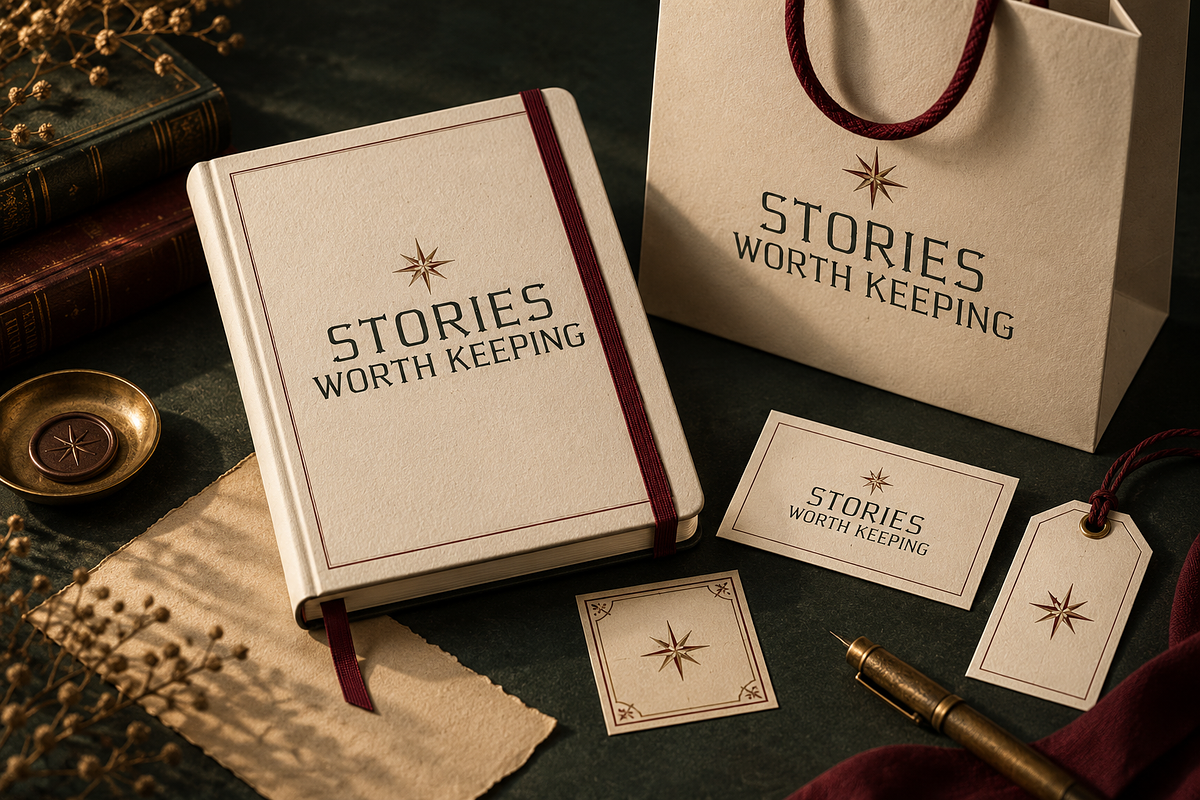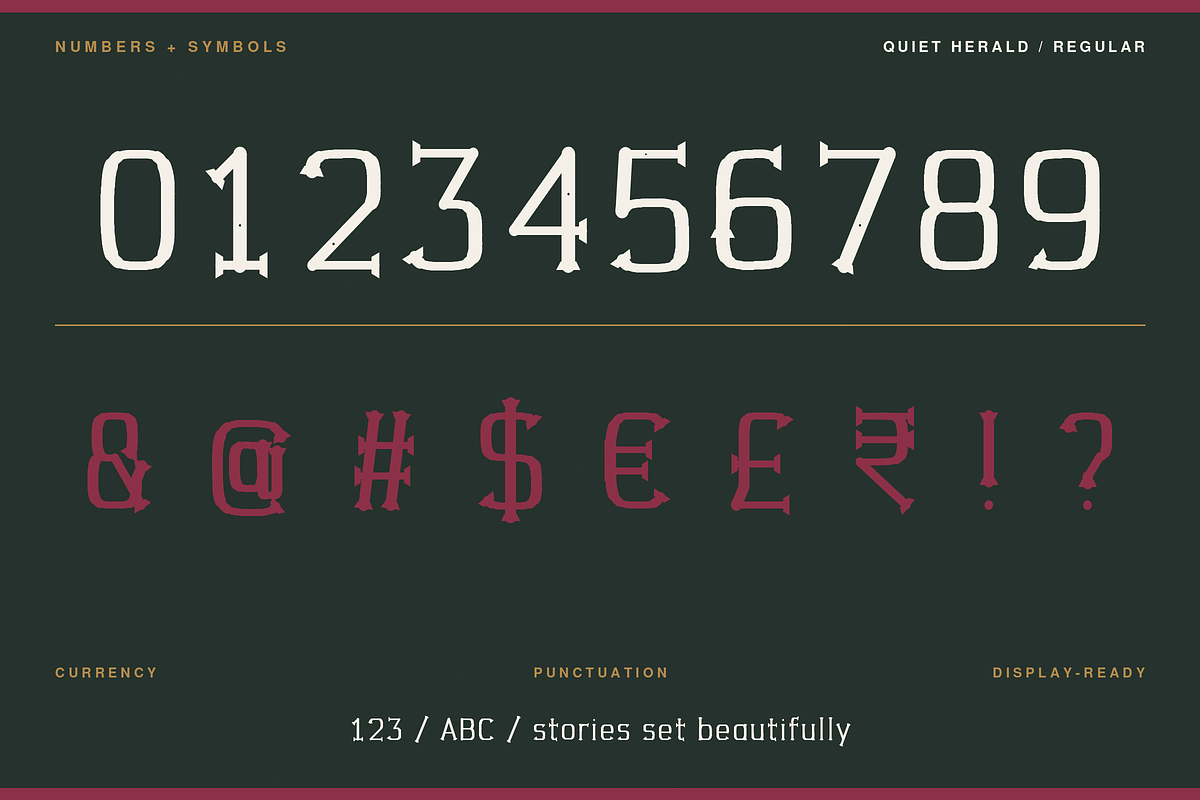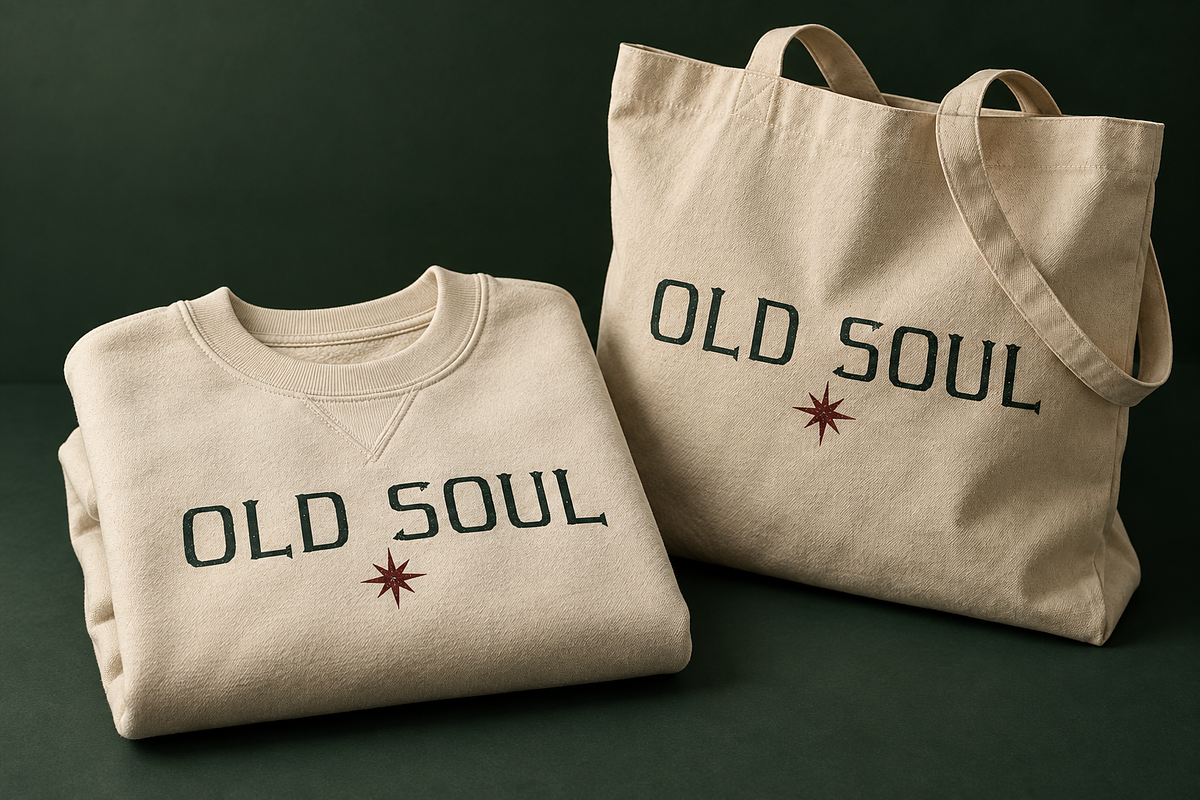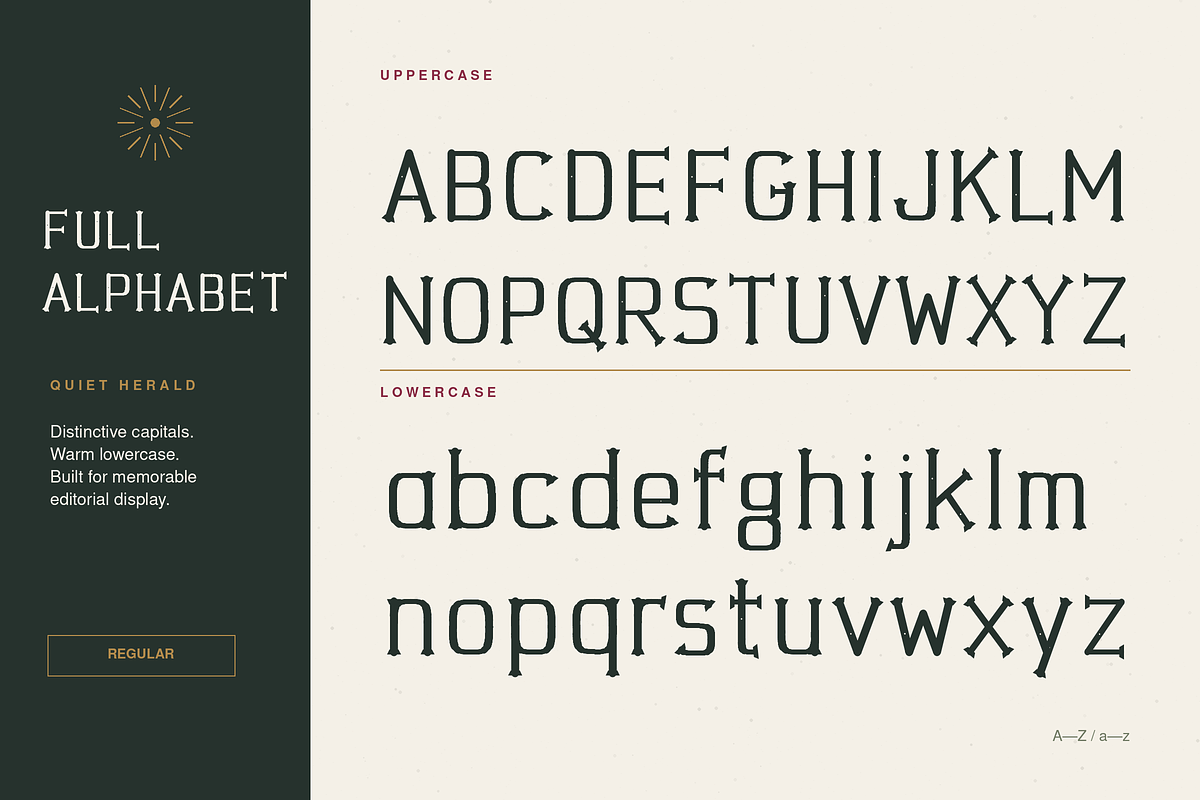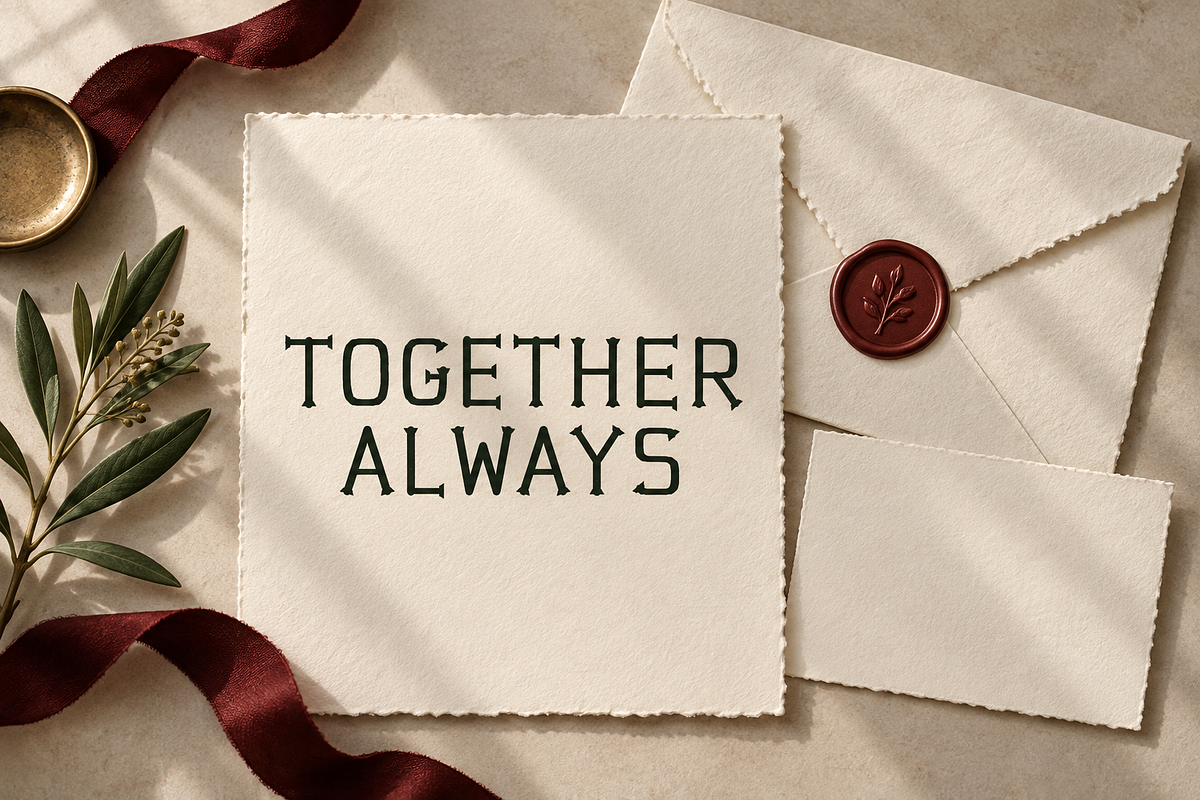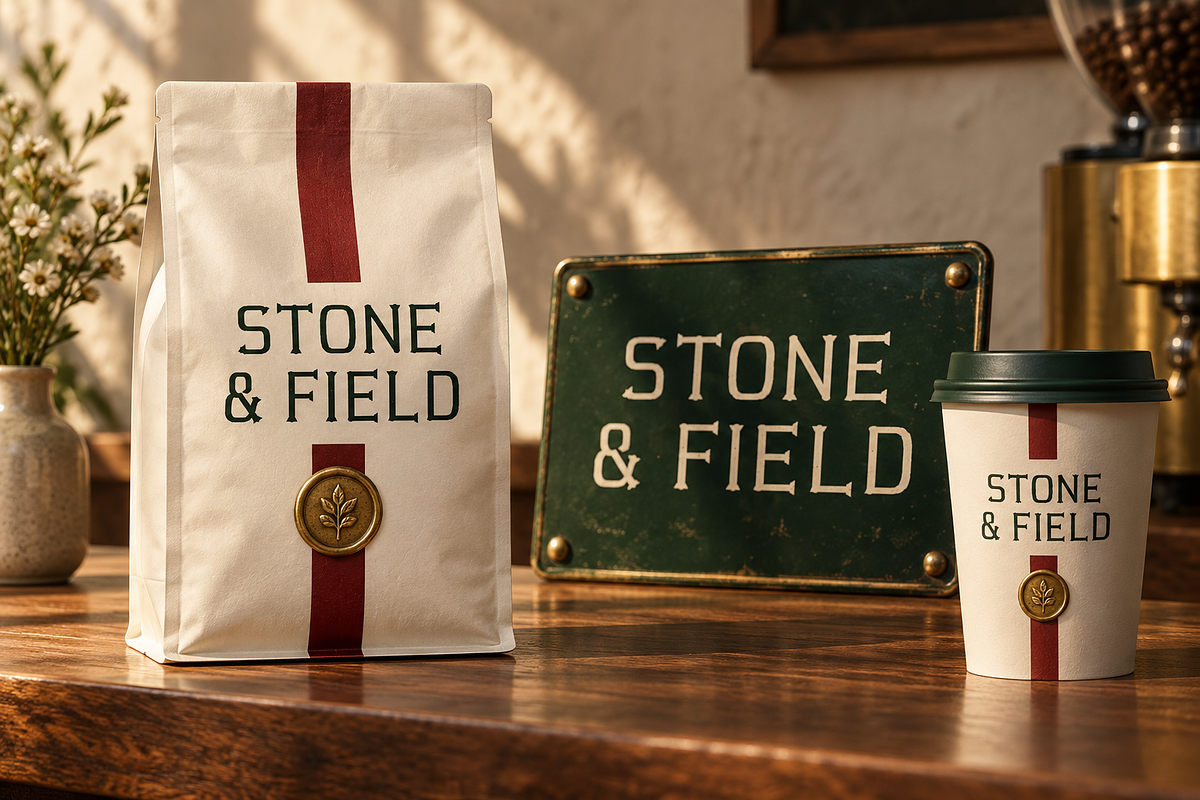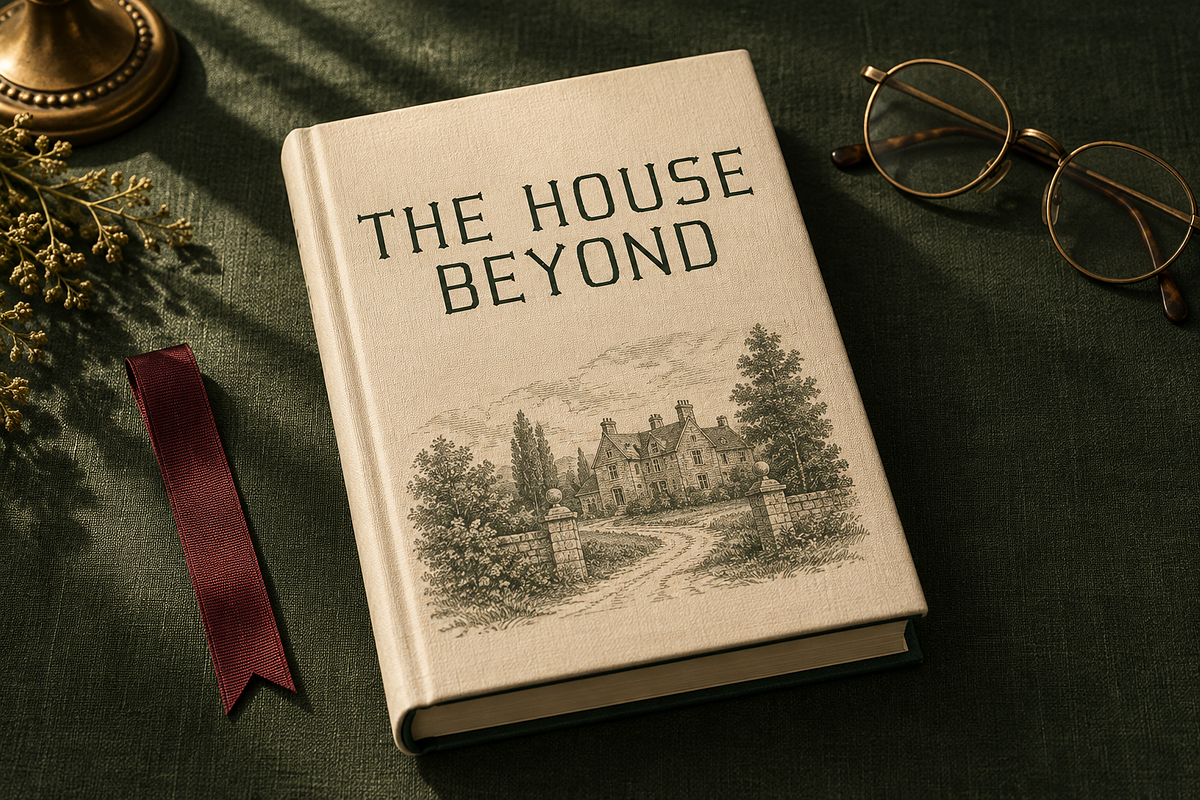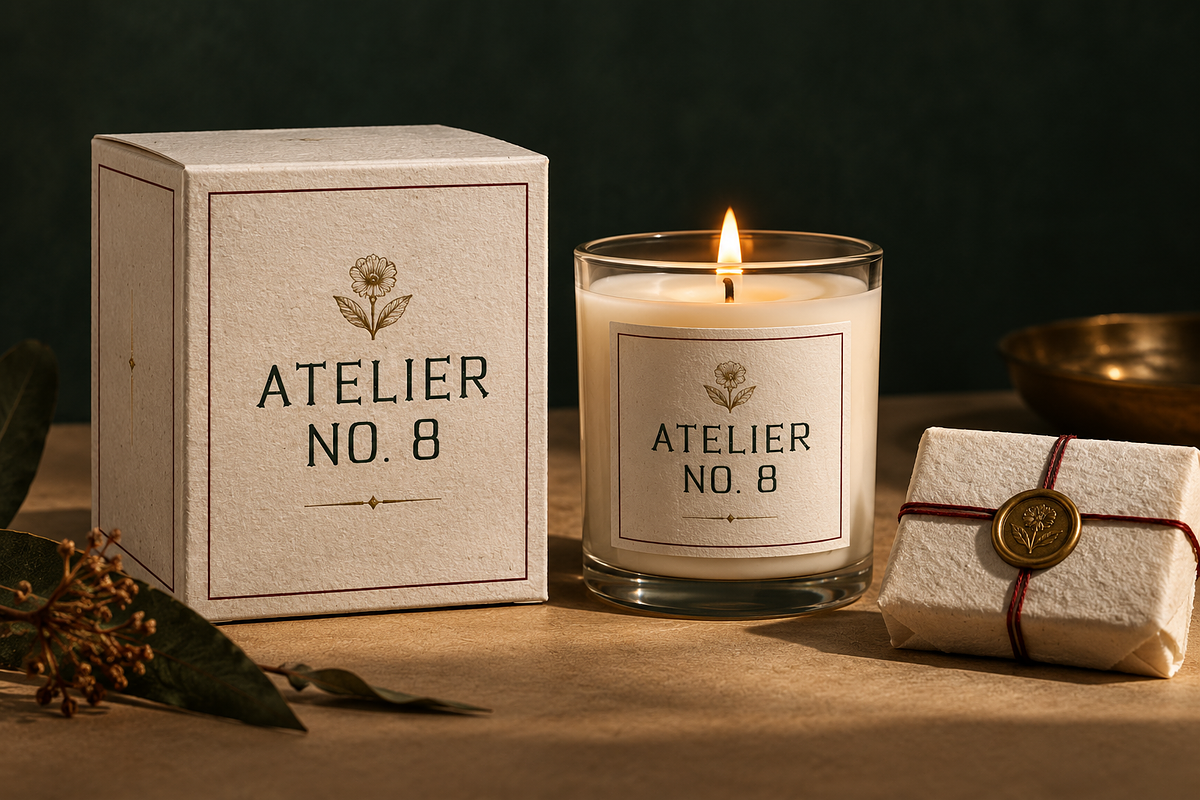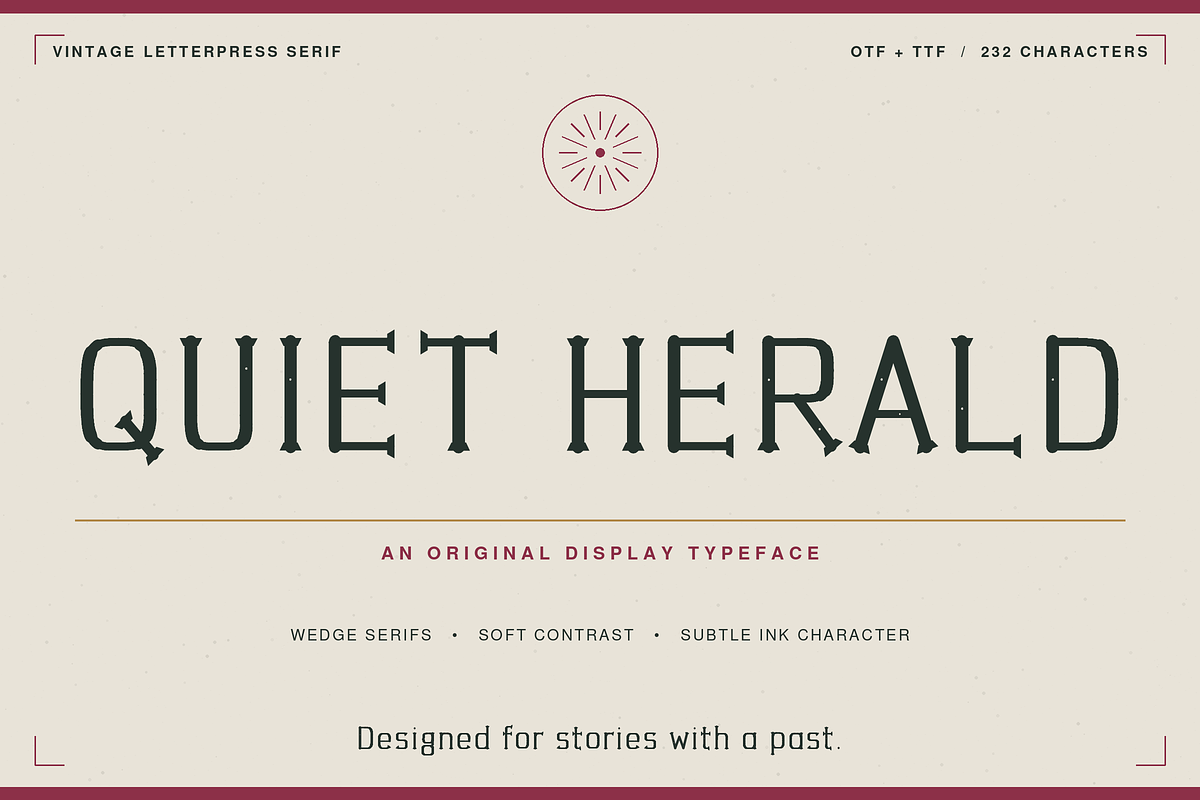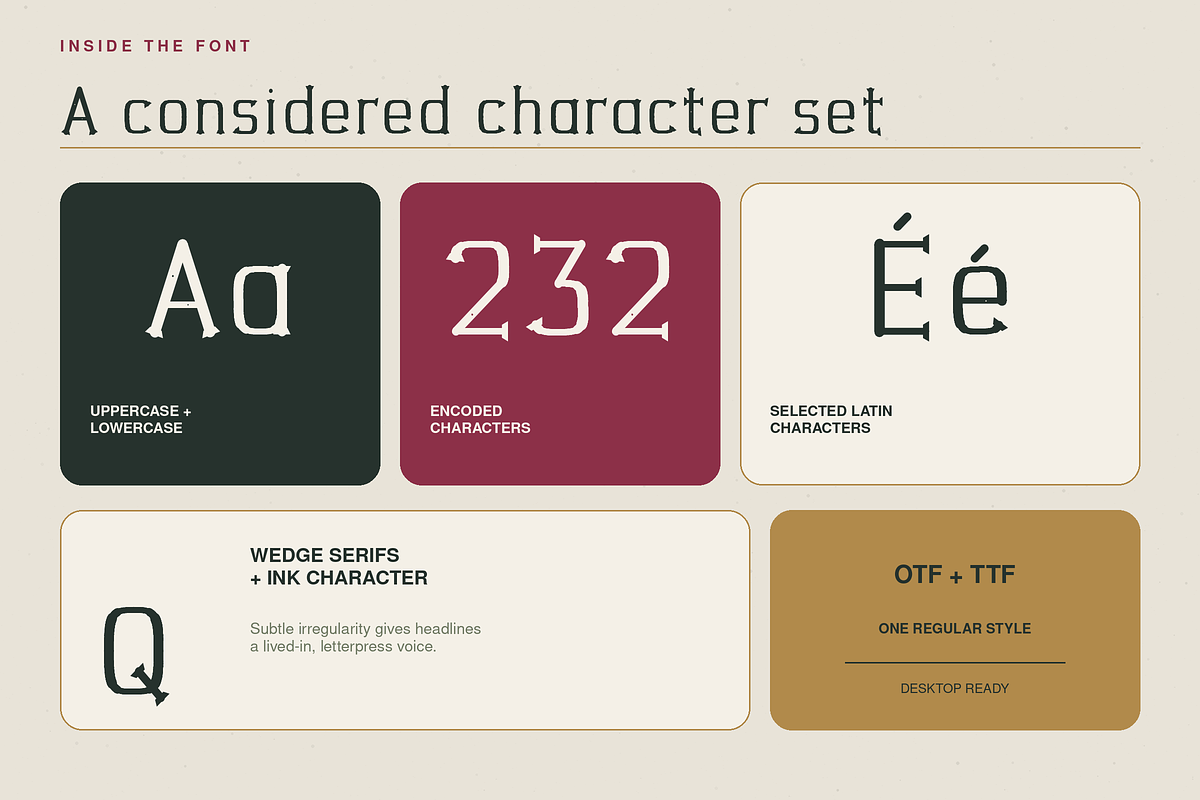
Quiet Herald – Vintage Letterpress
Meet Quiet Herald, a vintage-inspired serif typeface created for designs that deserve character, warmth, and a timeless editorial voice.
Quiet Herald combines distinctive wedge serifs, softly irregular letterforms, elegant proportions, and subtle letterpress character. Its handcrafted appearance feels historic and refined without sacrificing readability, making it ideal for both classic and contemporary projects.
• Editorial headlines and magazine layouts • Book covers and literary branding • Wedding invitations and stationery • Artisan packaging and product labels • Logos and heritage brand identities • Café, bakery, and restaurant branding • Posters, apparel, and merchandise • Quotes, social media graphics, and signage
Quiet Herald works beautifully with warm paper textures, botanical illustrations, antique engravings, muted colors, and minimal layouts. Use it to create thoughtful designs that feel collected, storied, and made to last.